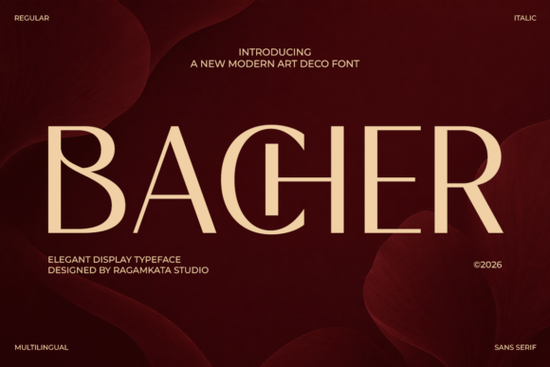
If you've been searching for a typeface that feels both luxurious and modern, the Bacher Font is worth a close look. This Art Deco-inspired display typeface combines refined geometric shapes with graceful curves, giving your designs a polished, high-end feel. Whether you're working on branding projects, wedding stationery, or social media graphics, Bacher brings a sense of sophistication that's hard to replicate with standard fonts.
What Makes the Bacher Font Different From Other Display Fonts?
Most display fonts fall into one of two camps: they're either stylish but hard to read, or functional but forgettable. Bacher sits in a sweet spot between the two. Its high-contrast letterforms and clean geometric structure give it strong visual impact, while the balanced proportions keep text legible even at smaller sizes.
The Art Deco influence shows in subtle ways think even stroke weights, sharp terminals, and symmetrical curves. But it doesn't feel dated. The overall design leans contemporary, which makes it a solid fit for modern branding and editorial layouts.
Compared to something like the Home Leave font, which takes a more relaxed, casual approach, Bacher feels deliberately refined. It's the kind of typeface you'd choose when you want your audience to immediately associate your design with quality and taste.
Who Is This Font Best Suited For?
Bacher works well across a range of creative projects. Here are some specific use cases where it really shines:
- Luxury logos The geometric elegance pairs well with minimalist brand identities
- Fashion and beauty branding Perfect for packaging, lookbooks, and editorial headers
- Wedding invitations The Art Deco aesthetic adds a romantic, timeless quality
- Hotel and hospitality branding Conveys premium positioning without being overly ornate
- Jewelry and cosmetics promotions Works beautifully on flyers, price cards, and ads
- Magazine headlines Strong enough to anchor a full-page spread
- Social media content Stands out in crowded feeds, especially for lifestyle and beauty niches
If you run a print-on-demand shop, Bacher could be a strong addition to your font library. Art Deco designs consistently perform well on products like tote bags, mugs, and wall art, especially around the holiday season and wedding season.
Does It Pair Well With Other Fonts?
A display font like Bacher works best when combined with a complementary secondary typeface for body text or supporting copy. Because Bacher is bold and characterful, pairing it with something simpler and more understated helps maintain readability and visual balance.
A clean sans-serif like the Whipped Cream Family font can provide that contrast nicely. For projects that need a handwritten or script element say, a wedding invitation suite you might consider combining Bacher with something like the Better Together font for an elegant layered look.
The key is to let Bacher do the heavy lifting for headlines and titles, then use a simpler typeface for longer paragraphs and smaller text.
Is Bacher a Good Fit for Small Business Branding?
For small businesses in fashion, beauty, hospitality, or lifestyle spaces, yes. Bacher gives you a distinctive visual identity without needing a custom typeface designed from scratch. It's especially useful if your brand leans into a modern, upscale aesthetic.
That said, it's a display font, which means it's designed for short, impactful text not long paragraphs. Use it for your logo, headers, and accent text, but pair it with a readable body font for anything longer than a sentence or two.